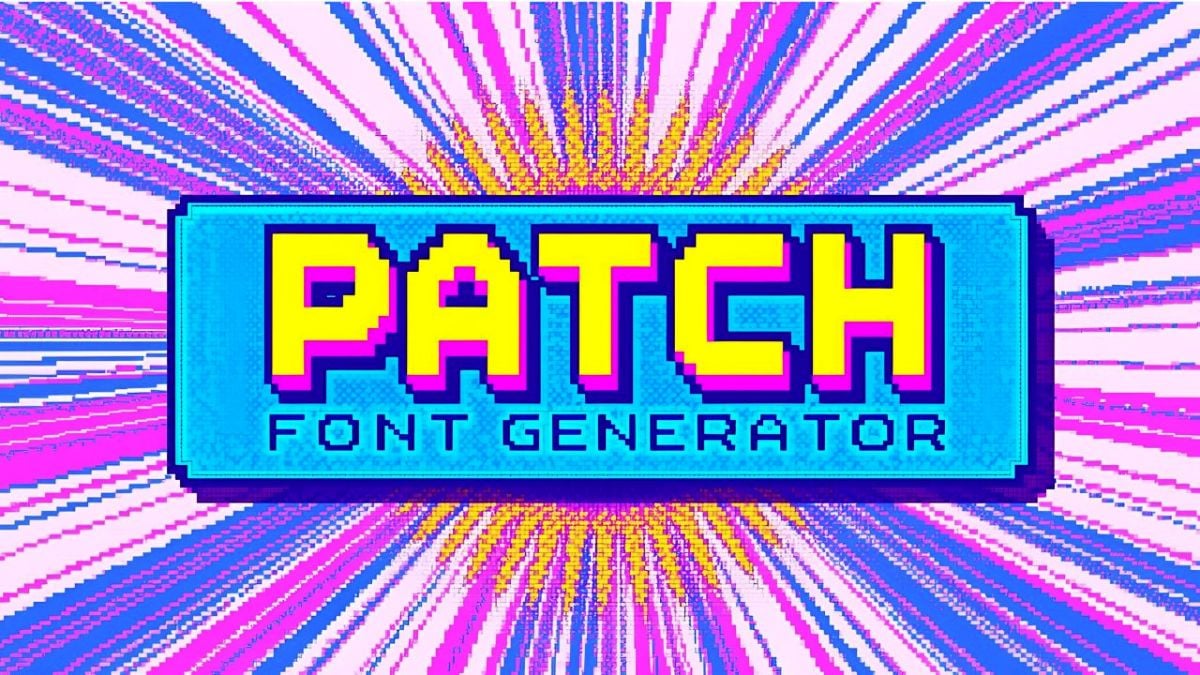
🎨 Patch Font Generator
✨ Create Modern & Stylish Text Effects Online ✨
Patch Font Generator creates stunning text effects using the modern PatchedThin, PatchedMedium, and PatchedBlack fonts. Experience the beauty of contemporary typography with our comprehensive font styling tools. Perfect for modern designs, branding, and creative projects.
Transform your text with Patched font’s elegant curves and clean lines, bringing modern sophistication to your digital content!
🎨 Premium Patch Fonts
Access PatchedThin, PatchedMedium, and PatchedBlack fonts for modern, elegant typography experiences.
✨ Advanced Styling
Customize your Patch text with modern colors, gradients, shadows, and effects for contemporary designs.
💎 Professional Quality
High-quality font rendering with smooth curves and clean lines perfect for modern branding.